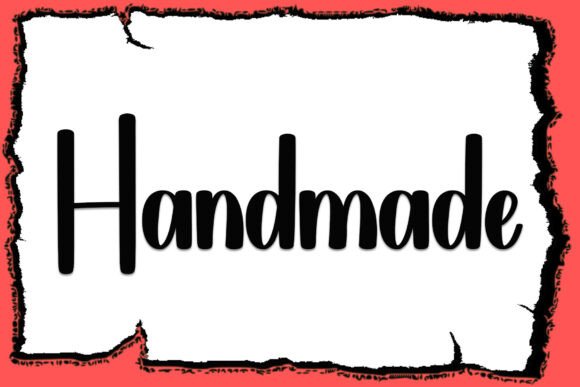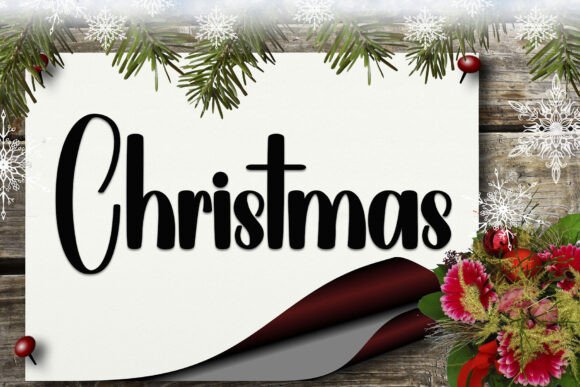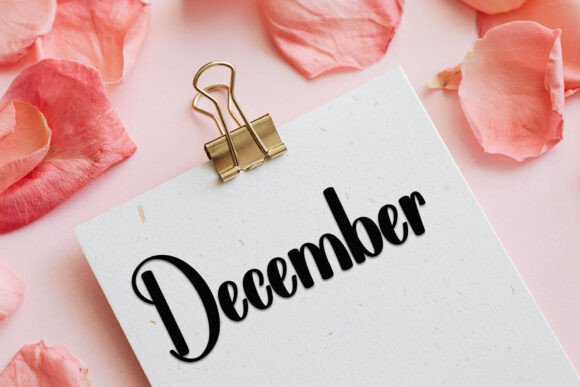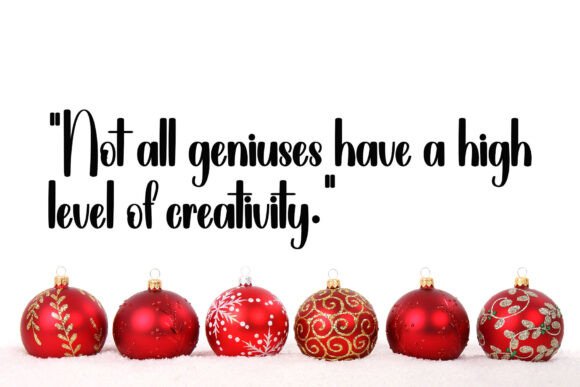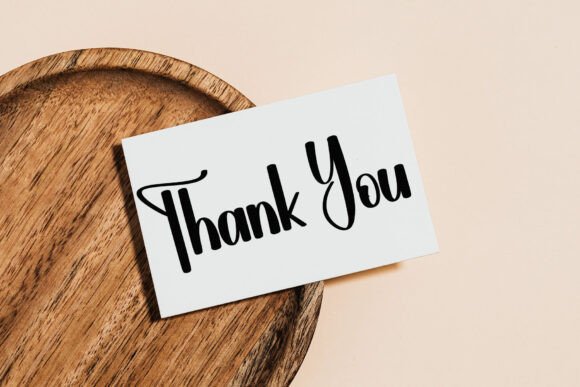
Baby Pretty Font: Elevate Your Designs with Elegance and Class
In the world of typography, fonts play a crucial role in conveying the tone and personality of a design. For designers and crafters looking to add a touch of sophistication and elegance to their projects, the Baby Pretty Font is an excellent choice. This trendy handwritten font is inspired by timeless classic calligraphy, making it perfect for those seeking a contemporary yet refined look.
What is Baby Pretty Font?
Baby Pretty Font is a beautiful, handwritten typeface that exudes a sense of modernity and poise. Its impeccable form and classic calligraphy inspiration make it an ideal choice for designers who want to add a touch of luxury to their work. Whether you’re creating branding materials, invitations, or any other design project, Baby Pretty Font is sure to impress.
Key Features of Baby Pretty Font
- Trendy and Contemporary: Baby Pretty Font boasts a modern and fresh look that’s perfect for designers who want to stay on top of the latest typography trends.
- Handwritten Elegance: With its handwritten feel, this font adds a personal touch to any design project, making it ideal for creating unique and eye-catching materials.
- Classic Calligraphy Inspiration: Inspired by timeless classic calligraphy, Baby Pretty Font brings a sense of sophistication and refinement to any design.
- Impeccable Form: The font’s impeccable form ensures that it remains clear and legible, even at smaller sizes, making it versatile for various design applications.
Use Cases for Baby Pretty Font
Baby Pretty Font’s versatility makes it suitable for a wide range of design projects, including:
- Branding and Logo Design: Use Baby Pretty Font to create elegant and memorable logos that reflect your brand’s personality.
- Wedding Invitations and Stationery: Add a touch of romance and sophistication to your wedding invitations, stationery, and other paper goods.
- Packaging Design: Elevate your packaging design with a font that exudes luxury and refinement.
- Digital and Print Media: Use Baby Pretty Font in your digital and print media, such as brochures, flyers, and social media graphics, to create visually appealing content.
Tips for Using Baby Pretty Font Effectively
To get the most out of Baby Pretty Font, consider the following tips:
- Pair with Neutral Backgrounds: Allow Baby Pretty Font to shine by pairing it with neutral backgrounds that won’t compete for attention.
- Experiment with Colors: Try pairing Baby Pretty Font with different colors to create unique and eye-catching combinations.
- Use for Headings and Titles: Baby Pretty Font is perfect for headings and titles, where its elegance and sophistication can shine.
- Consider Font Size and Style: Experiment with different font sizes and styles to create visual hierarchy and add depth to your design.
In conclusion, Baby Pretty Font is a stunning handwritten font that brings elegance and class to any design project. Its trendy yet timeless look makes it perfect for designers and crafters seeking to create sophisticated and refined materials. With its impeccable form, classic calligraphy inspiration, and versatility, Baby Pretty Font is sure to become a go-to choice for designers looking to elevate their designs.